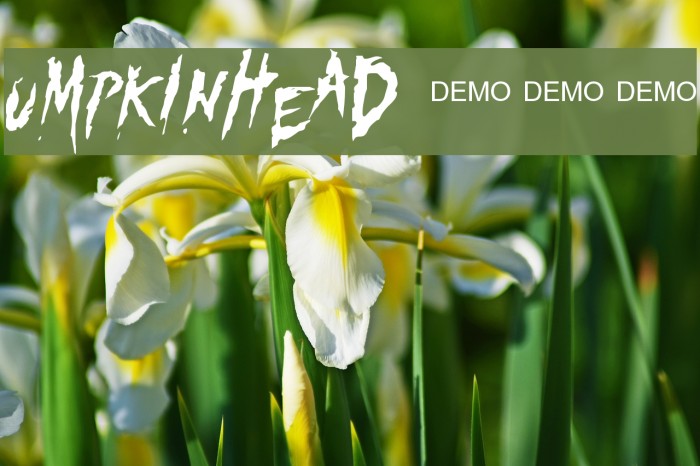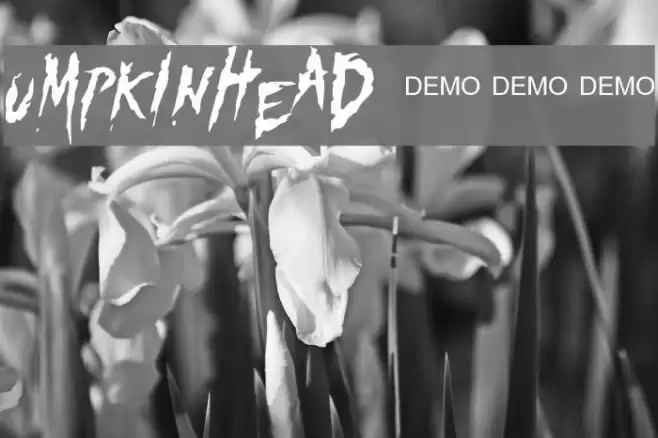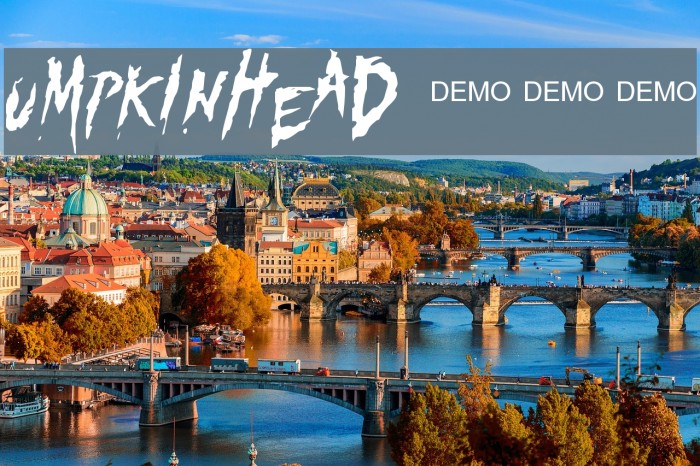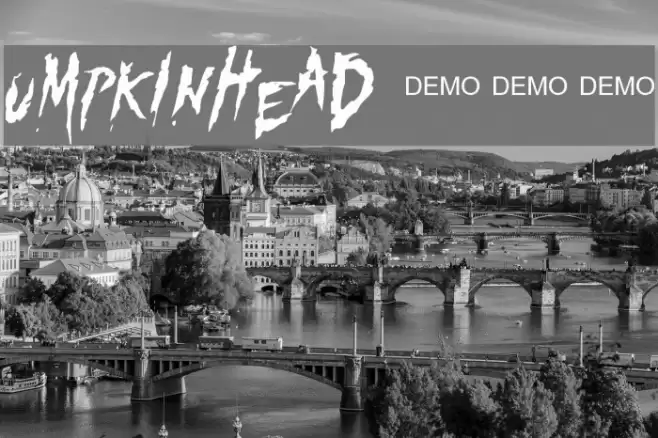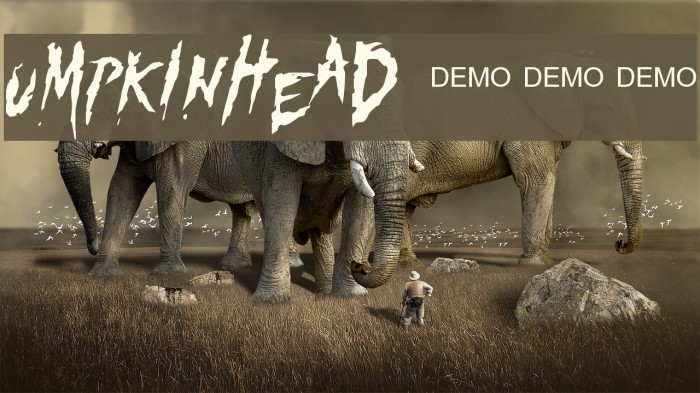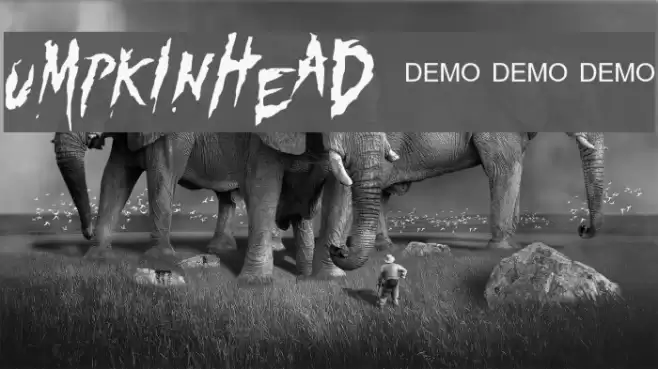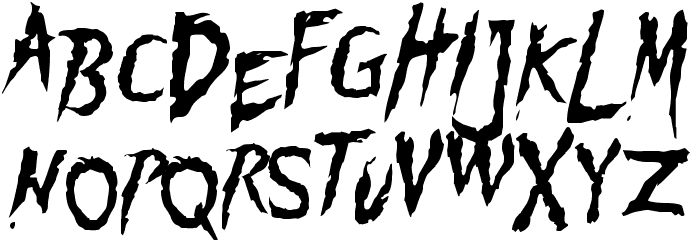
Pumpkinhead DEMO Font
Pumpkinhead DEMO Description
This font embodies a spooky, jagged style reminiscent of horror themes. The letters are irregular and sharp, with a distressed appearance that suggests they have been carved or torn. The uppercase letters are bold and dramatic, each character featuring unique cuts and angles that contribute to a chaotic yet cohesive look. The font's rough edges and uneven strokes give it a hand-drawn feel, making it ideal for designs that require a touch of the eerie or macabre. Its distinctive style is perfect for Halloween-themed projects, horror movie posters, or any creative work that seeks to evoke a sense of mystery and suspense.
| Overall Style | Horror, Spooky, Distressed |
| Use Case | Headlines, Posters, Themed Invitations |
| Proposed Projects | Ideal for Halloween designs, horror movie posters, spooky invitations, and themed event promotions. |